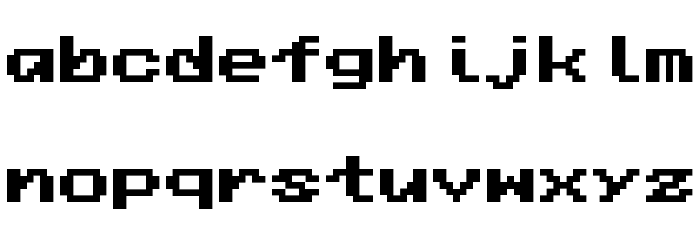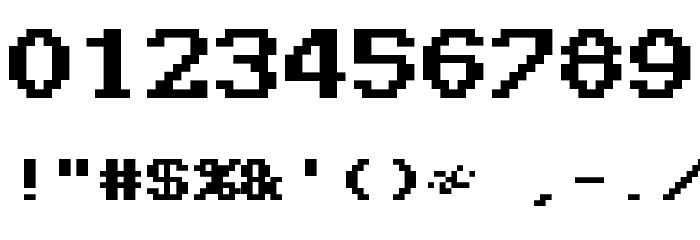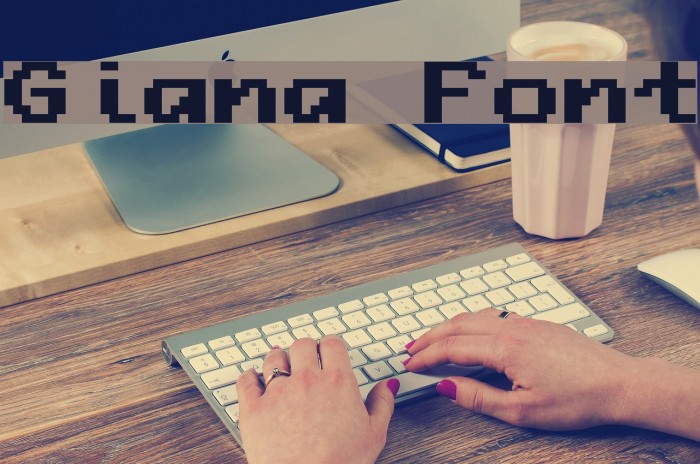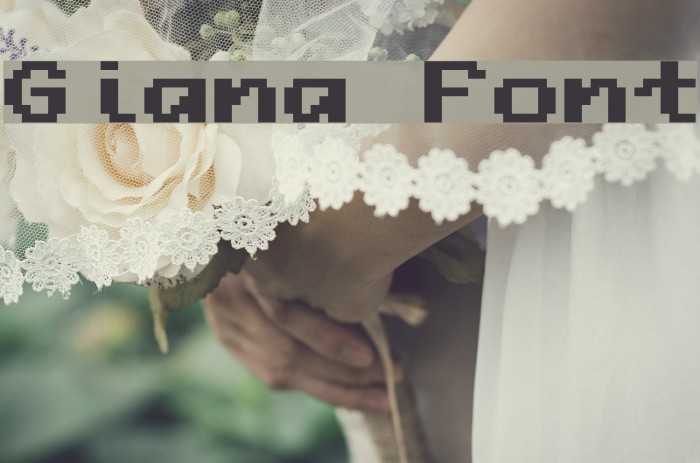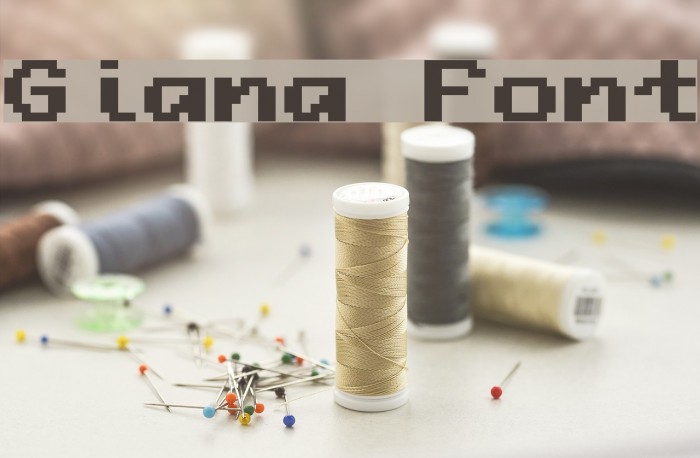
Giana Font
This font features a pixelated, blocky design reminiscent of early digital or video game typography. Each character is constructed with a grid-like precision, giving it a distinctly retro and digital aesthetic. The uppercase and lowercase letters maintain a consistent height, contributing to a uniform appearance. Numbers and special characters follow the same pixelated style, ensuring visual coherence across all glyphs. The font's simplicity and geometric form make it highly legible at various sizes, though it is particularly striking in larger displays where its unique style can be fully appreciated.
A pixelated, retro-style font with a blocky, digital appearance.
- Proposed Projects: Ideal for video game design, retro-themed posters, digital art projects, and any creative work that seeks to evoke a sense of nostalgia for early computing.
- Overall Style: Retro, Digital